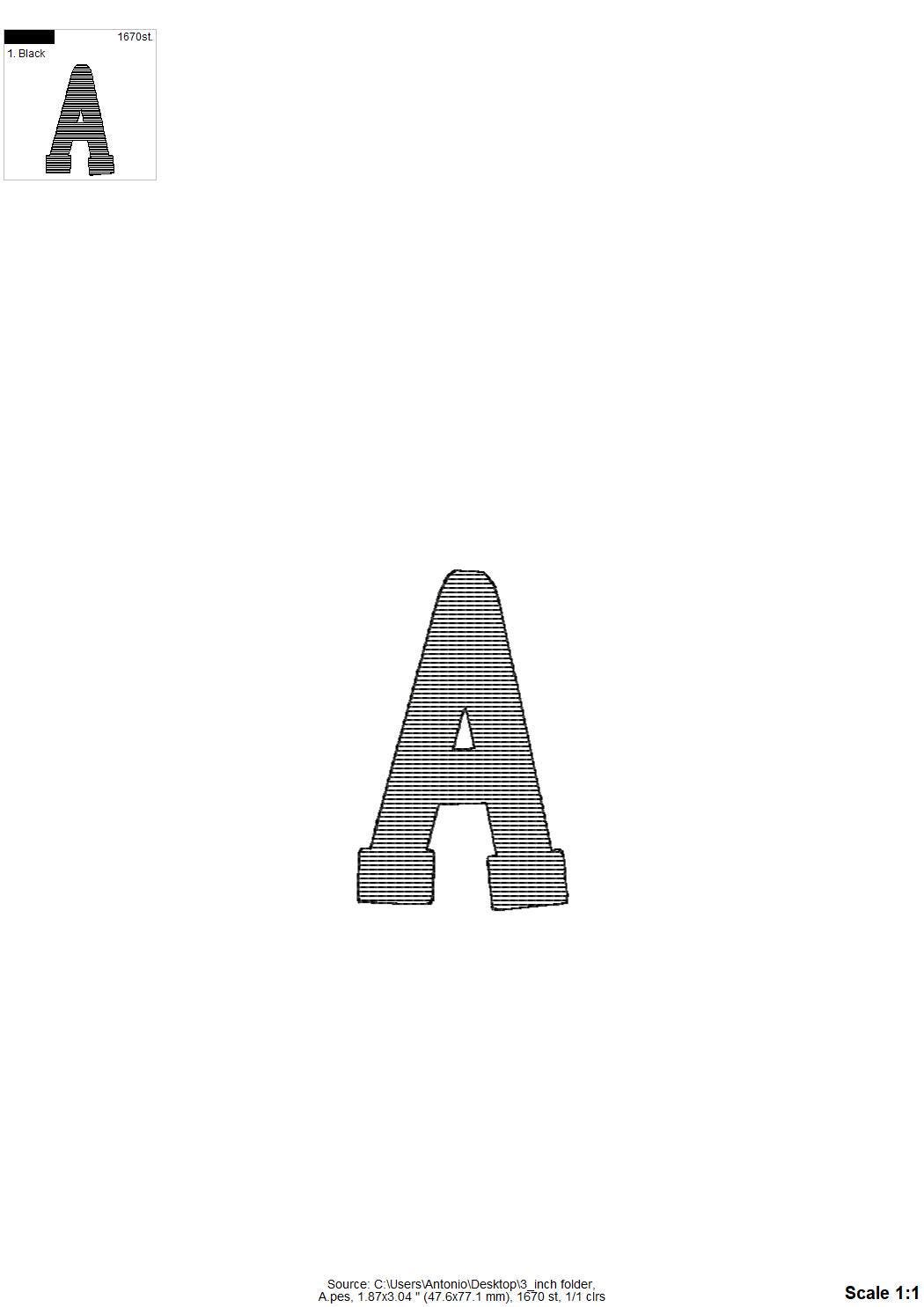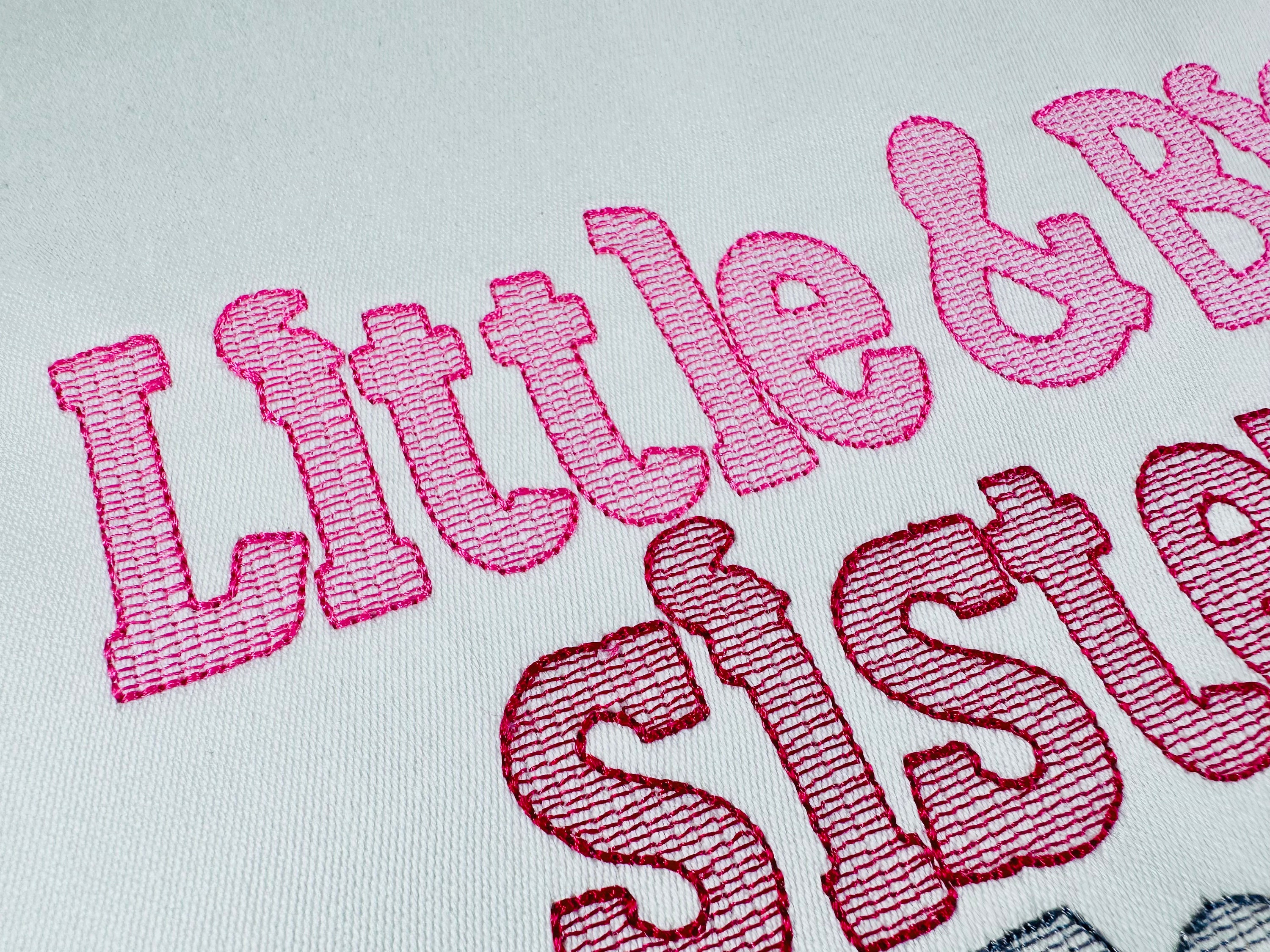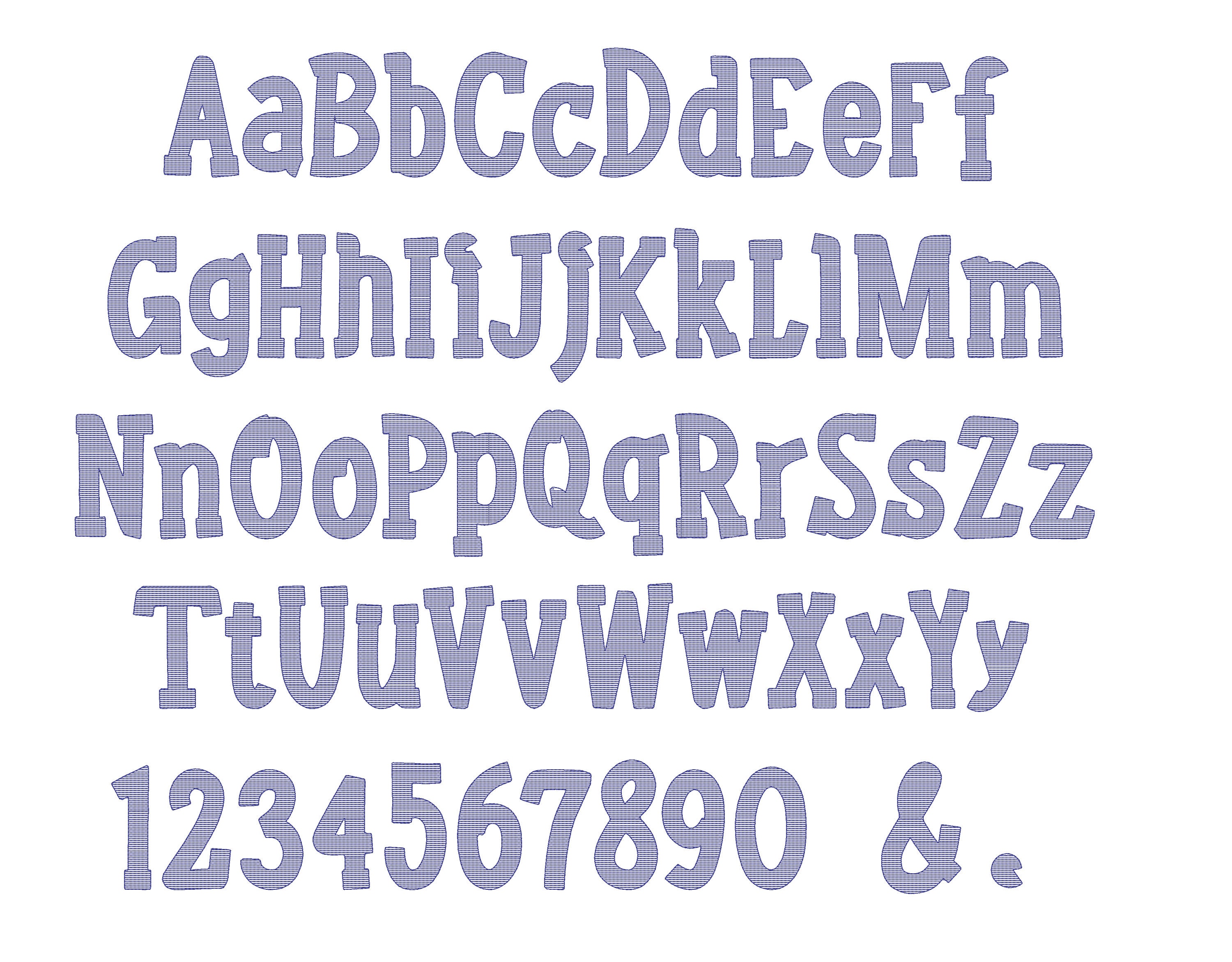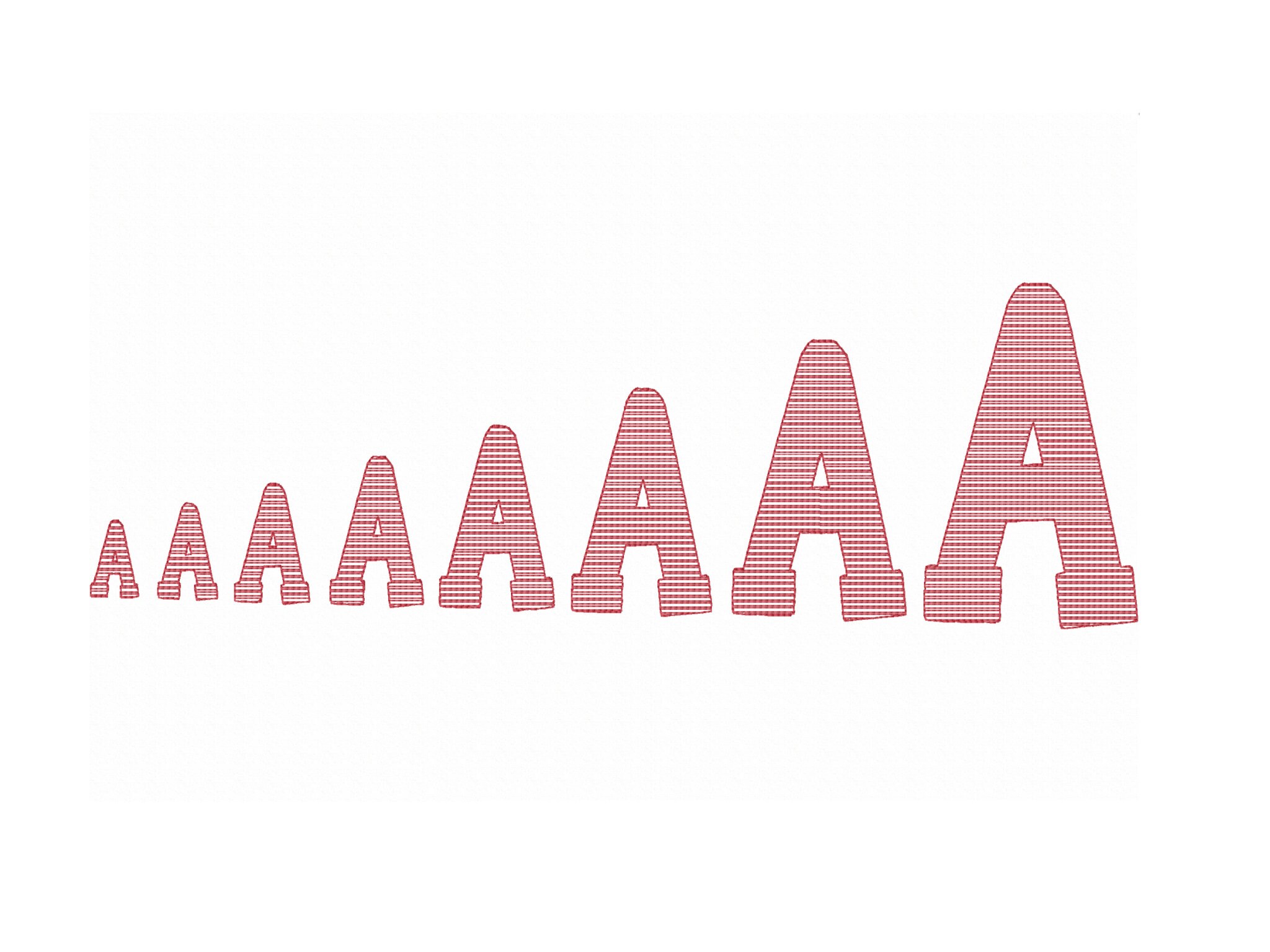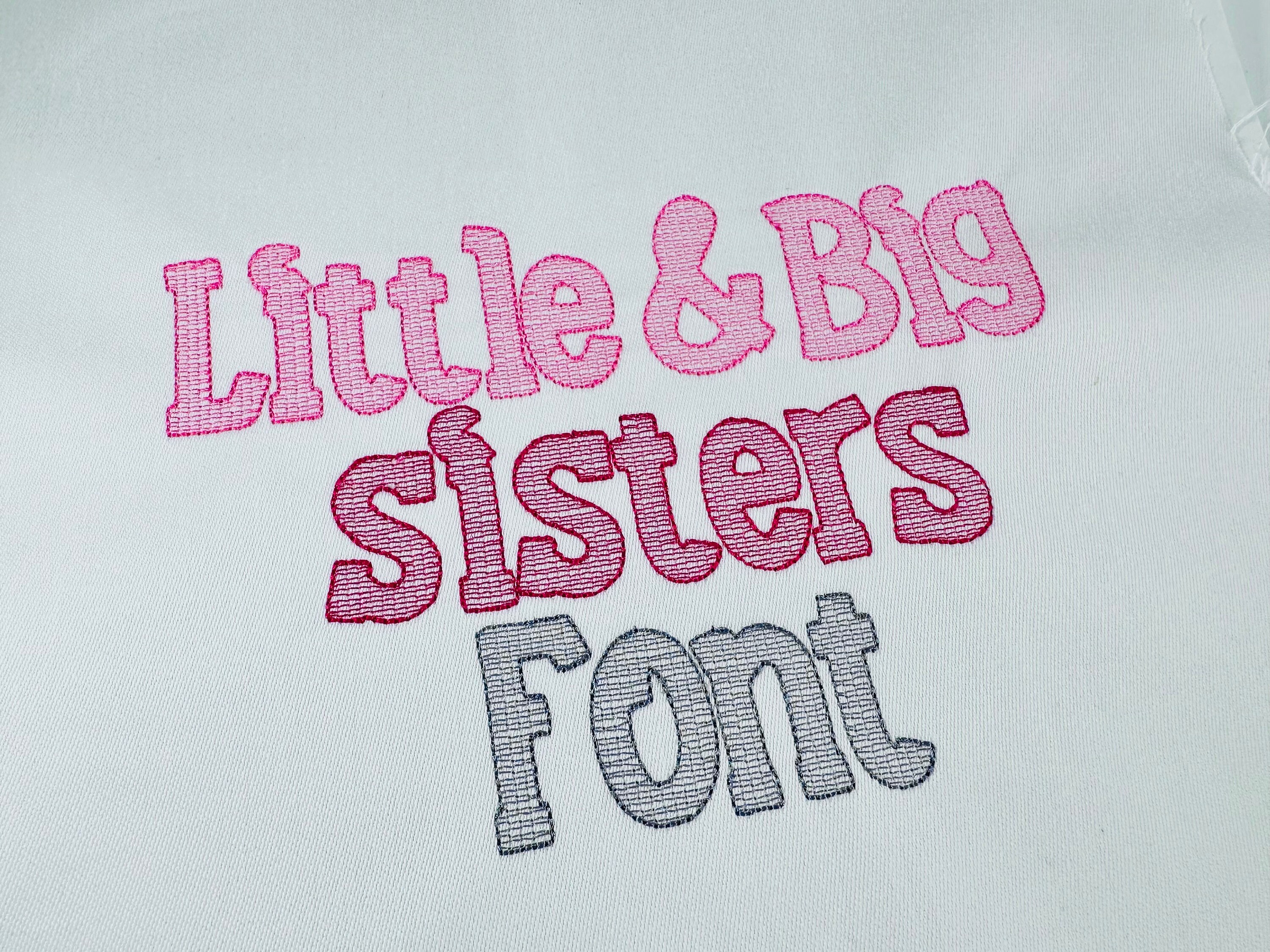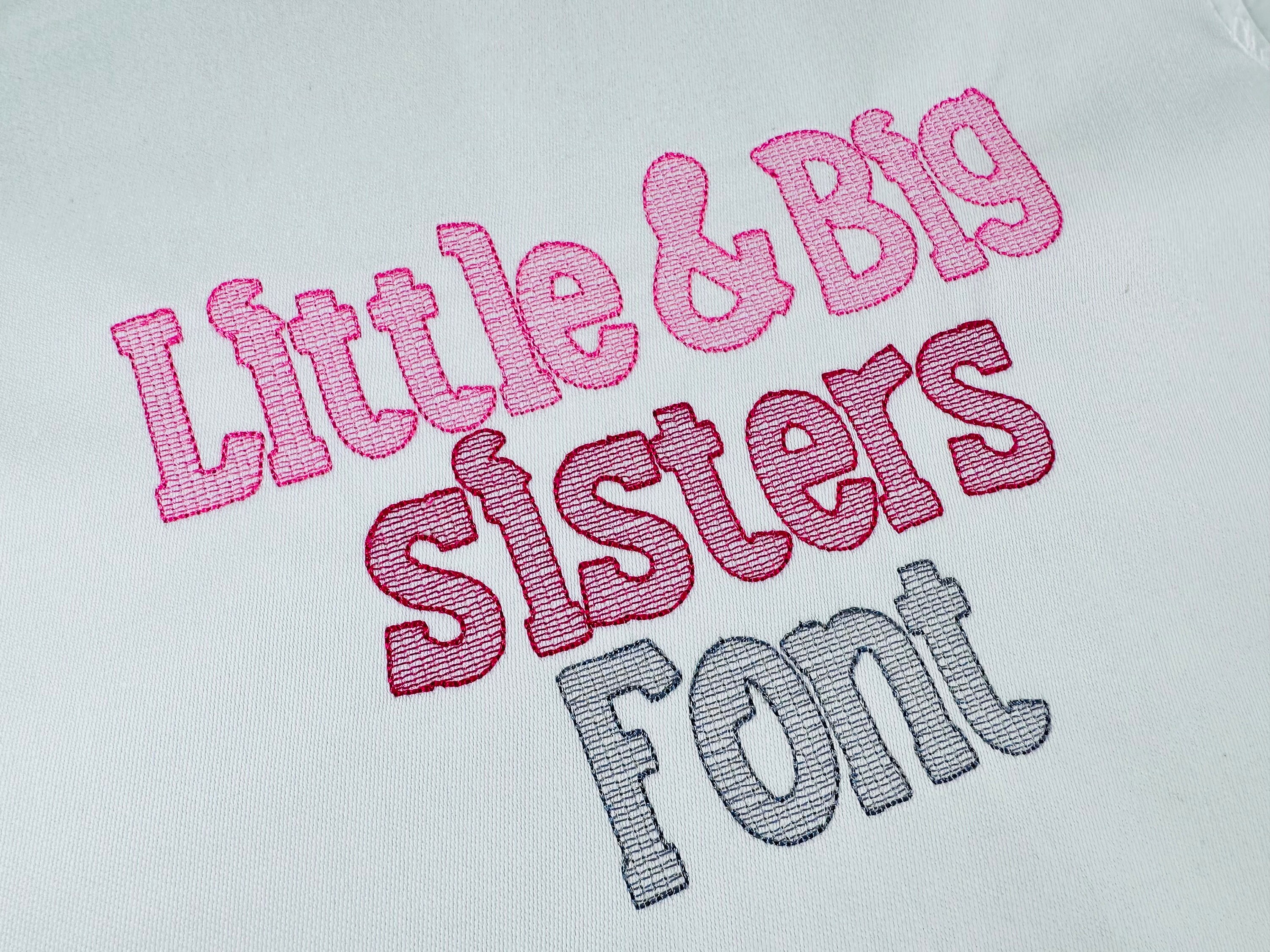
Light quick stitch Mylar awesome Font alphabet letters machine embroidery designs mini sizes 1 thru 3.7 inches, monogram name BX font
Whole alphabet uppercase and lowercase letters, numbers, ampersand, and period.
Note: This is a light stitch design with a transparent look, and the background fabric looks through. Stunning effect!
It also looks beautiful stitched with Mylar or glitter HTV vinyl.